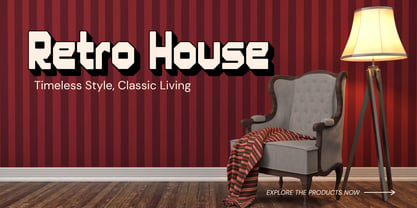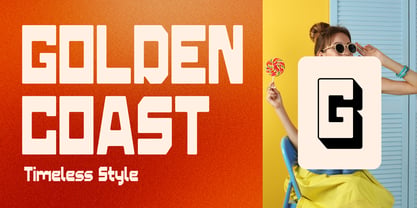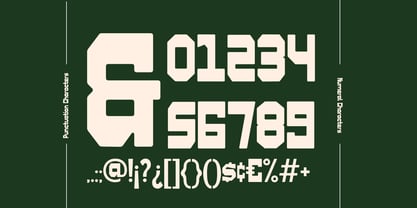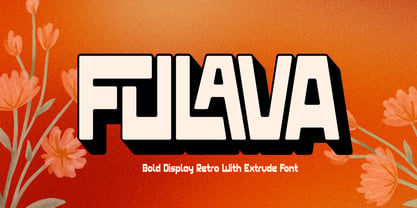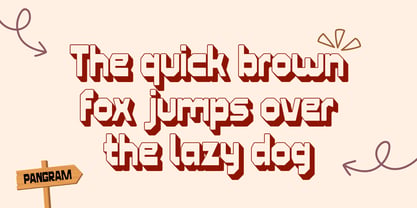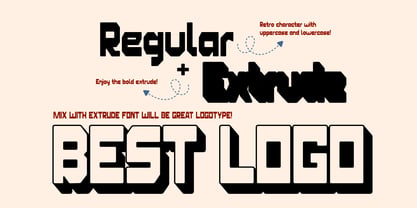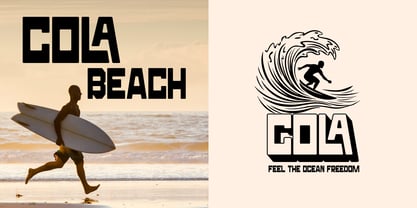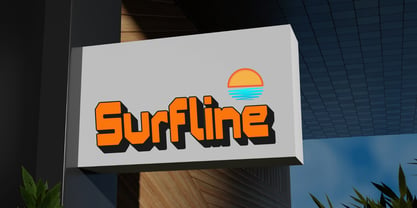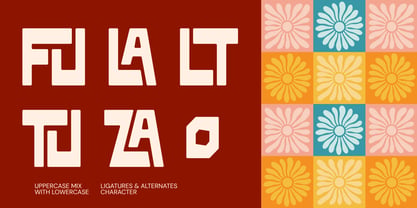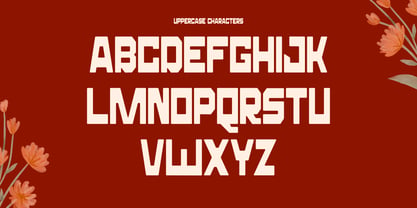
Fulava
by Illushvara
The Fulava Font Family was designed by Bayu Suwirya and published by Illushvara. Fulava contains 2 styles and family package options. More about this family
Fulava is a bold retro display font featuring Regular and Extrude styles for creating eye-catching vintage typography with depth and character. Designed with both uppercase and lowercase letters, it also includes stylish alternates and ligatures to give your designs a unique handcrafted look. Perfect for logos, branding, packaging, posters, signage, coffee shops, restaurants, social media, and any project that celebrates classic retro style with a modern twist.